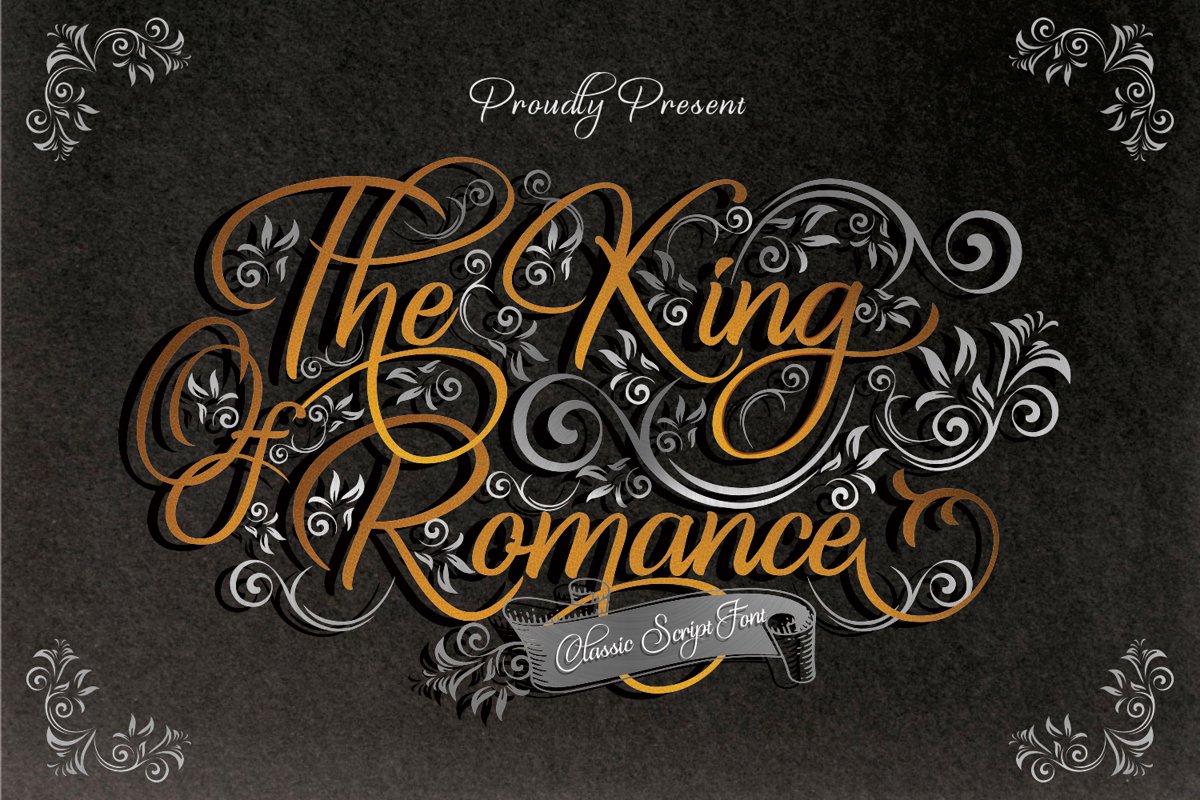
The King Of Romance is a classic and elegant Calligraphy Font. It is enriched with alternative characters and ligatures that make this font even more beautiful. Add it to your favorite creative ideas and make them stand out!
The King Of Romance is perfect for logos & branding, invitation card, product designs, label, product, movie, book tittle, product packaging, t’shirt design, greeting.
The King Of Romance Calligraphy Font